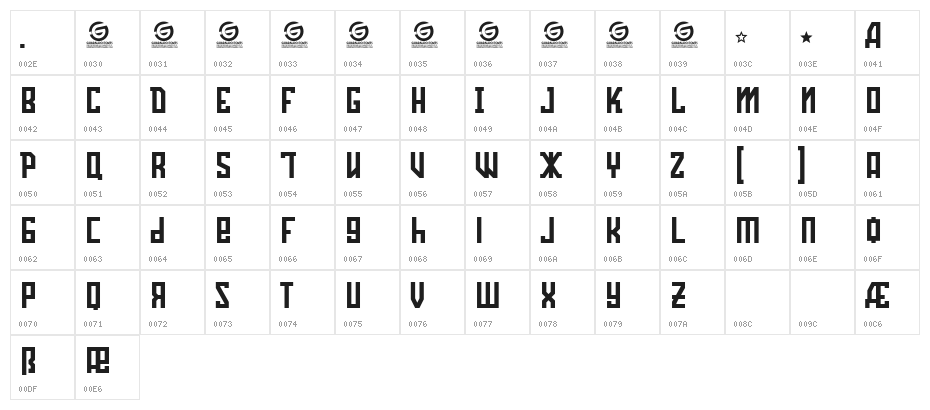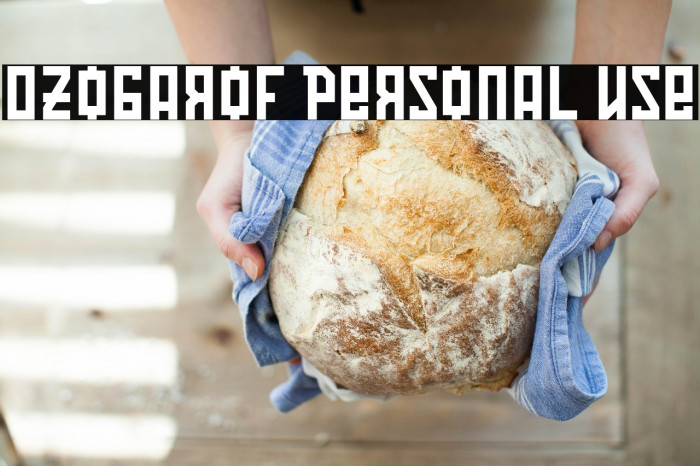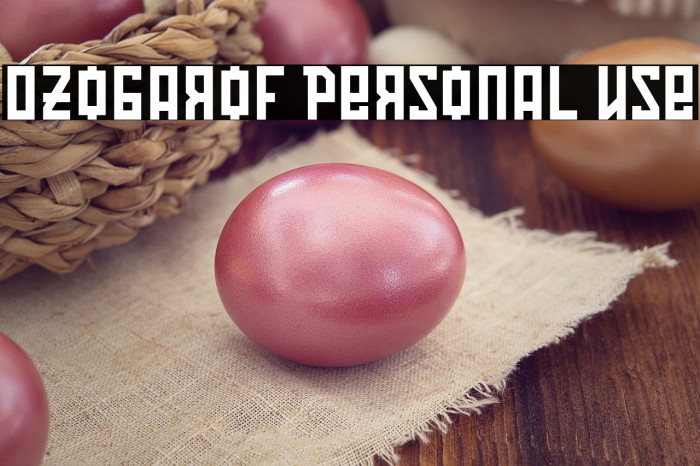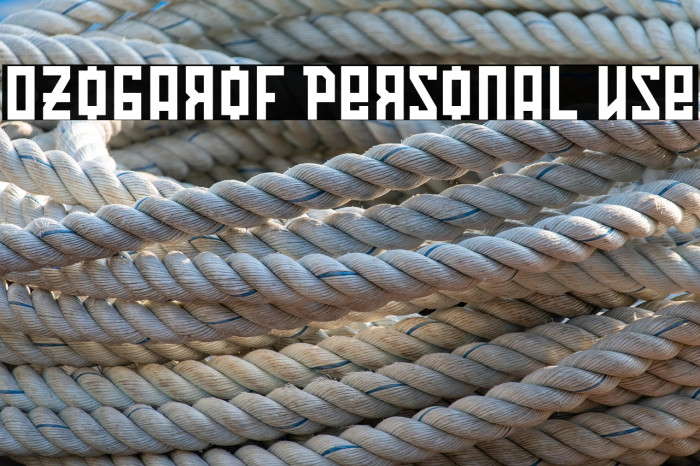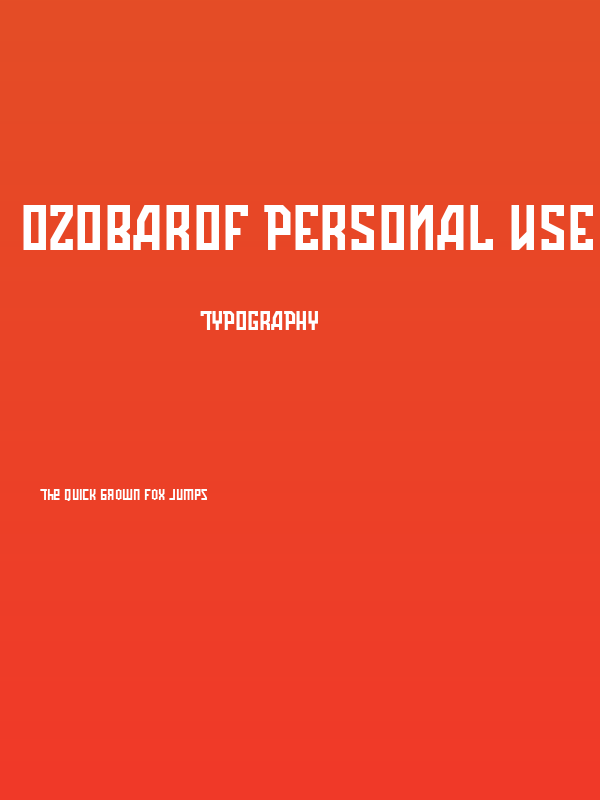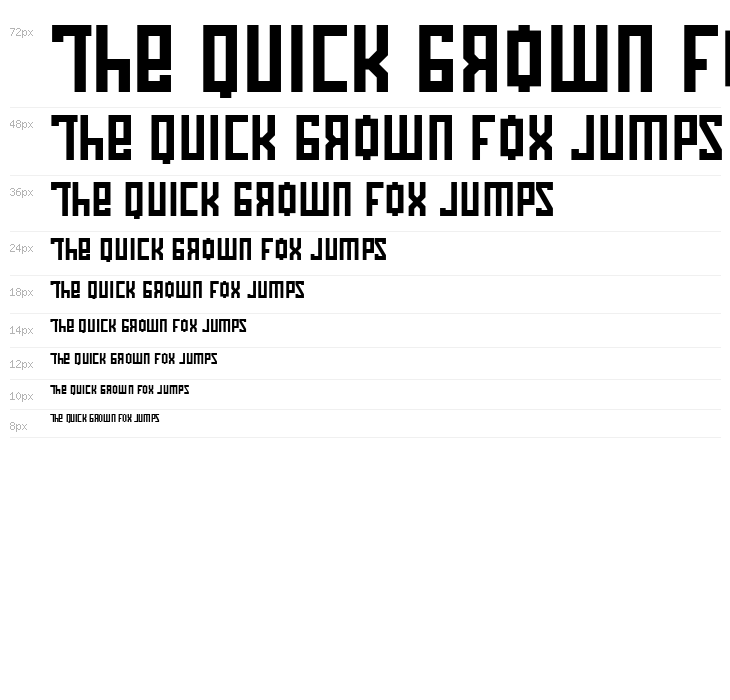
Ozobarof Personal Use Font
Ozobarof Personal Use Description
This font features a bold, geometric design with sharp angles and a strong presence. The uppercase letters are characterized by their blocky, angular shapes, giving a modern and assertive feel. The lowercase letters maintain the same boldness, ensuring consistency throughout the typeface. The numbers are equally robust, matching the style of the alphabet. The special characters are designed to complement the overall aesthetic, making them suitable for various uses. This font's distinct style makes it ideal for projects that require a strong visual impact.
| Proposed Projects | Ideal for branding, posters, headlines, and any design requiring a bold statement. |